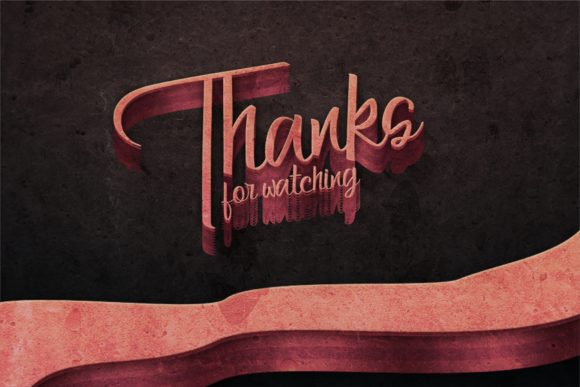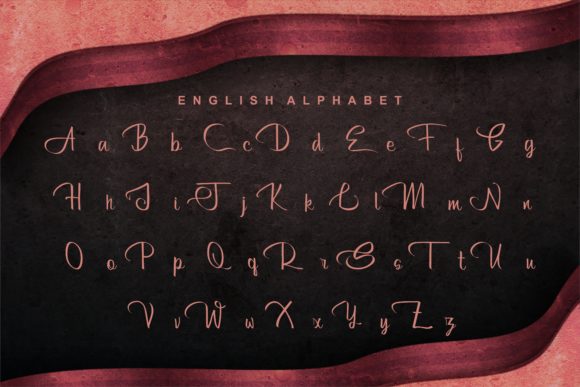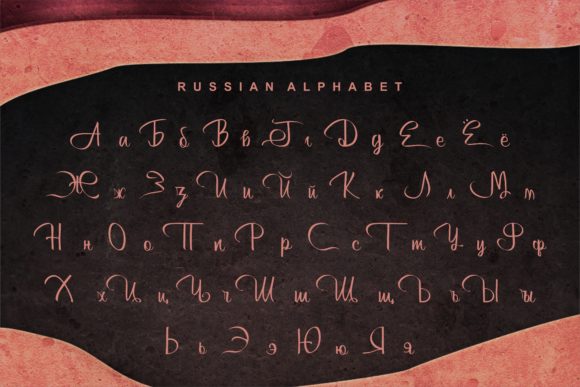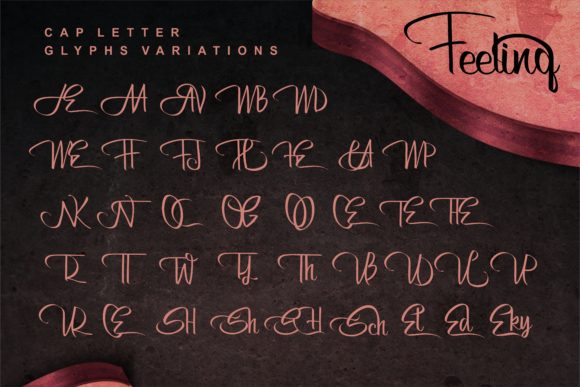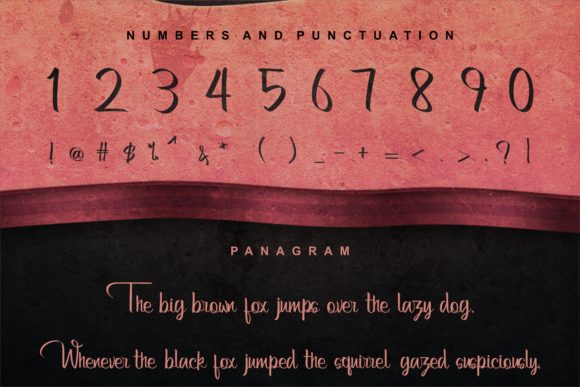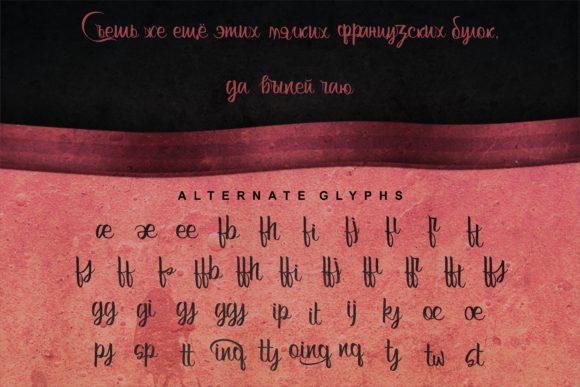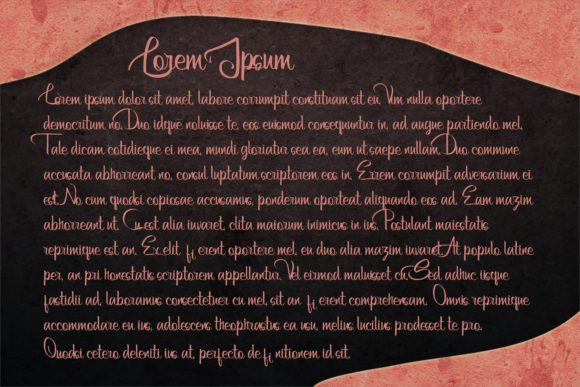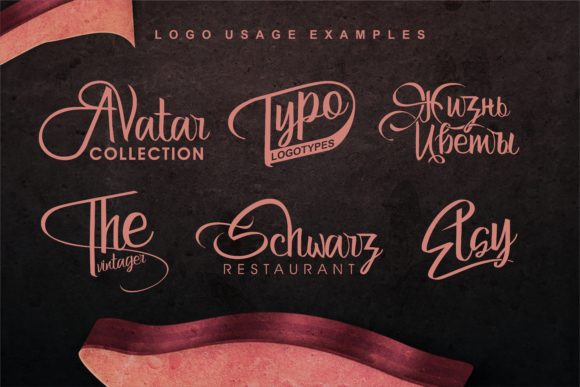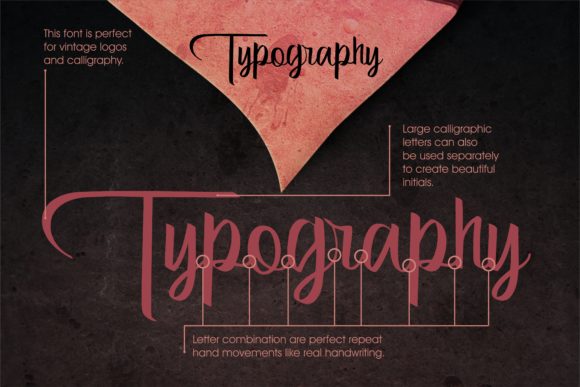
Bertha Font
About Bertha Font
Bertha is a stunning handwritten script font that effortlessly embodies beauty and elegance. Its exquisite design brings a touch of luxury to any creative project, making it an ideal choice for designers seeking to infuse sophistication into their work.
The flowing, handcrafted characters of Bertha contribute to its unique charm, creating a visually appealing and distinctive aesthetic. The font’s beauty lies in its simplicity, allowing it to convey a sense of refined elegance that can elevate various design elements.
Whether used for logos, invitations, posters, titles, or any other design application, Bertha adds a luxurious feel to the overall presentation. Its versatility makes it suitable for a wide range of projects, providing designers with a reliable tool to enhance the visual appeal of their creations.
Bertha stands out not only for its aesthetic qualities but also for its ability to convey a sense of warmth and personality. The handwritten script gives a personal touch to designs, making them more engaging and inviting. This characteristic makes Bertha particularly well-suited for projects that aim to create a connection with the audience.
In summary, Bertha is more than just a font; it’s a design asset that brings an elegant and luxurious feel to the table. Its beautiful handwritten script adds a distinctive touch to your creations, making them stand out with a timeless and sophisticated allure. Whether used in branding, promotional materials, or any other design endeavor, Bertha is a versatile and enchanting choice for those who appreciate the beauty of well-crafted typography.